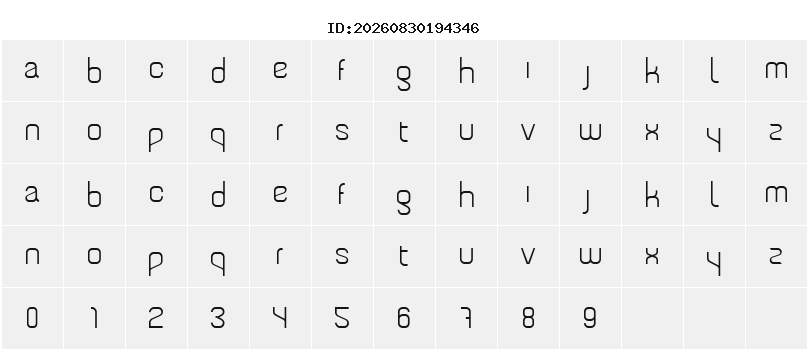
• Font Name: Tengra
• Font Style: Tengra
• Designer: Jacob King
About Tengra.ttf
Tengra.ttf is a modern, elegant sans-serif font designed for ultimate readability and visual harmony. Perfect for branding, headlines, web design, and print materials.